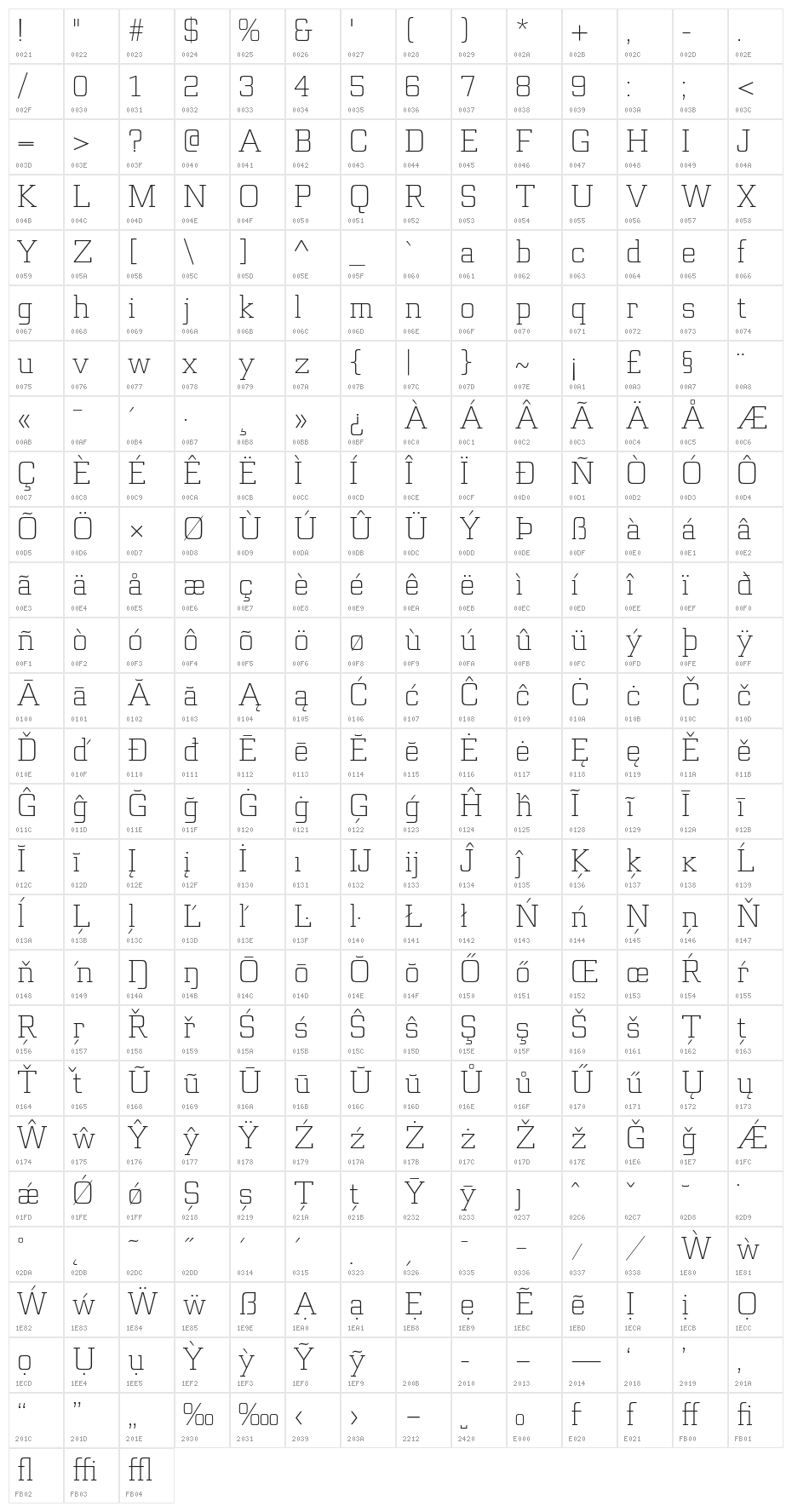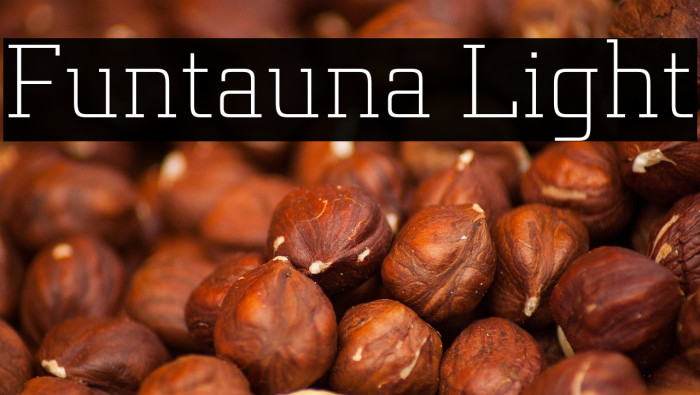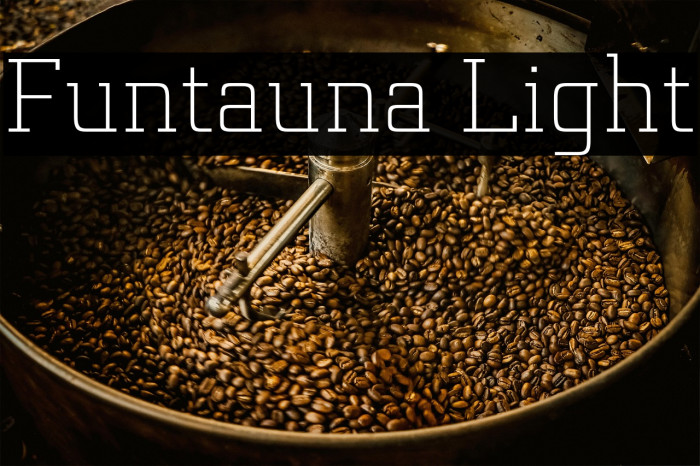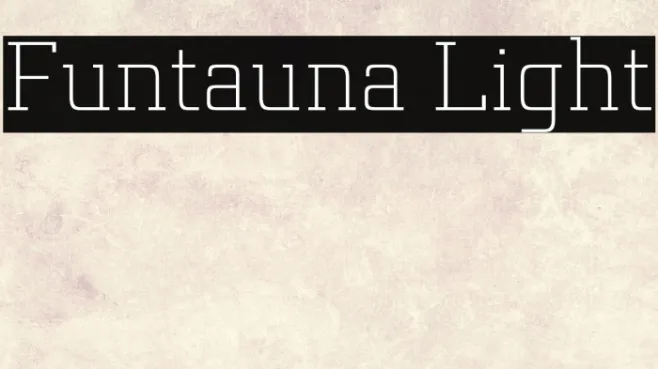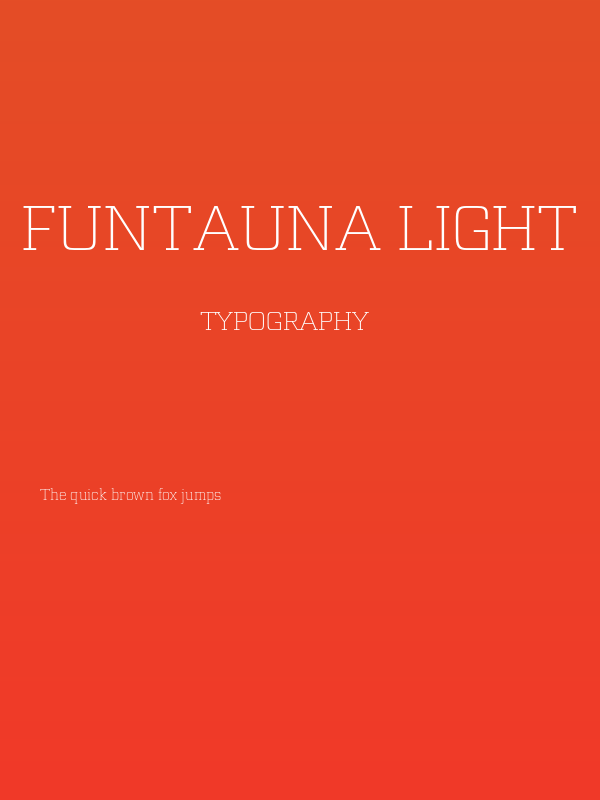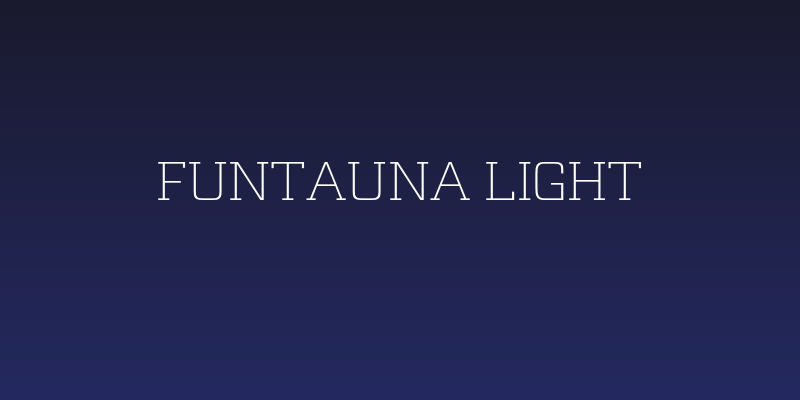
Funtauna Light Font
Funtauna Light Description
This font features a clean and modern design with a geometric structure. The characters are constructed with a uniform line weight, giving it a sleek and contemporary appearance. The uppercase letters are tall and slightly condensed, while the lowercase letters maintain a consistent height, providing a balanced look. The numerals are clear and easy to read, with a uniform width that complements the overall design. Special characters are included, maintaining the same geometric style. This font is versatile and suitable for a variety of design applications.